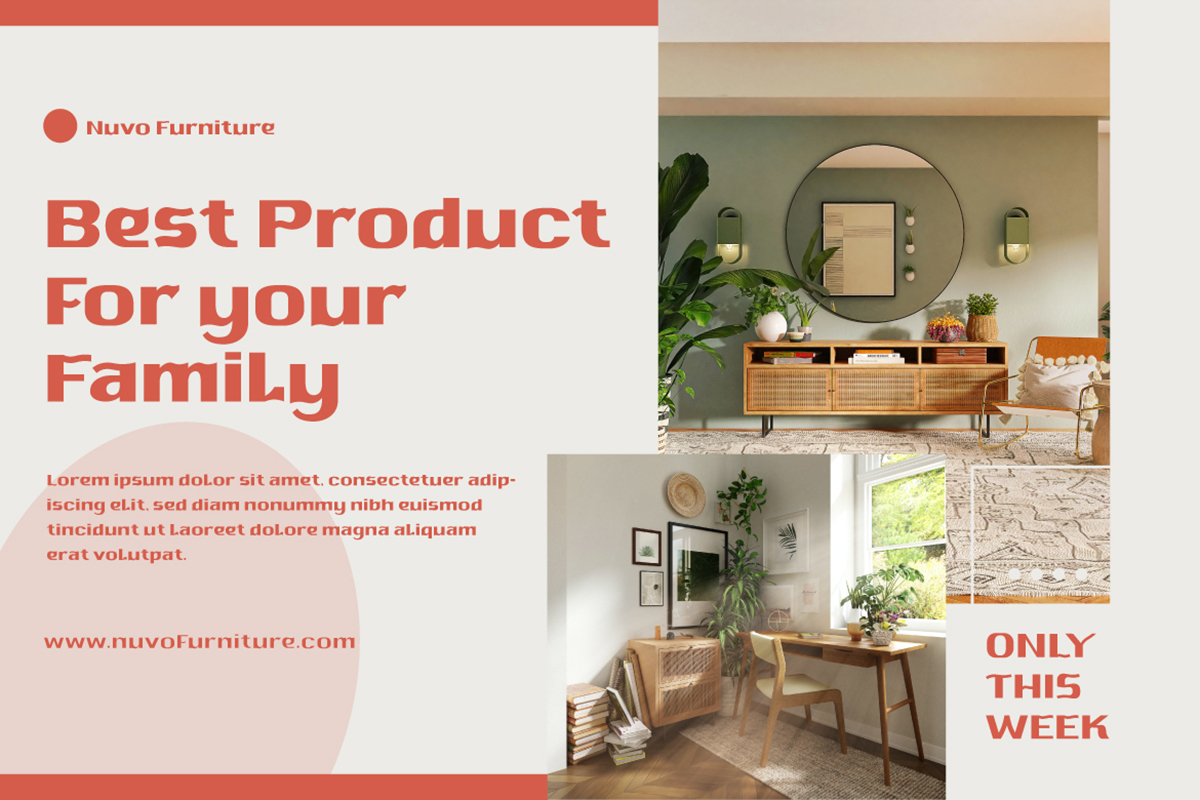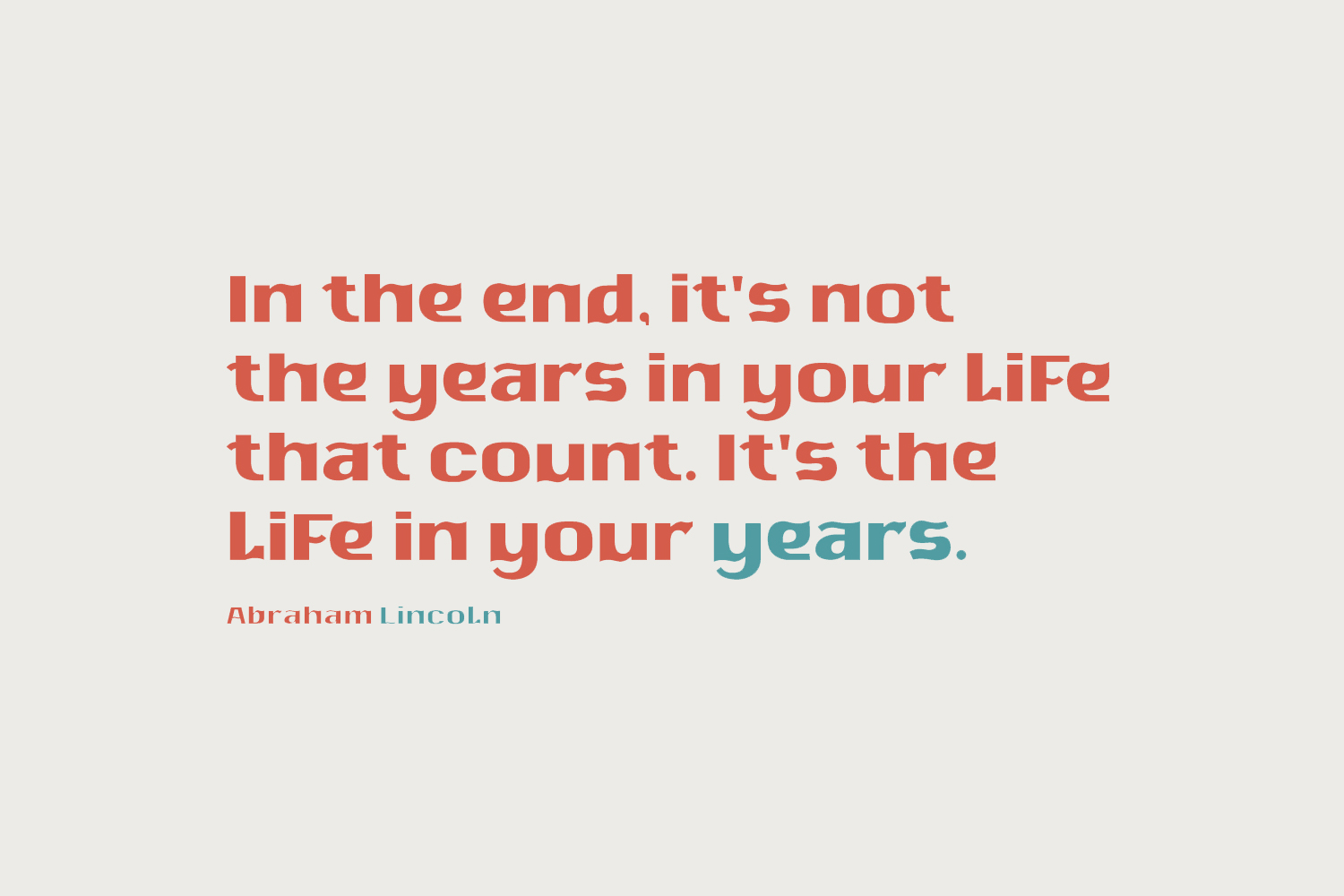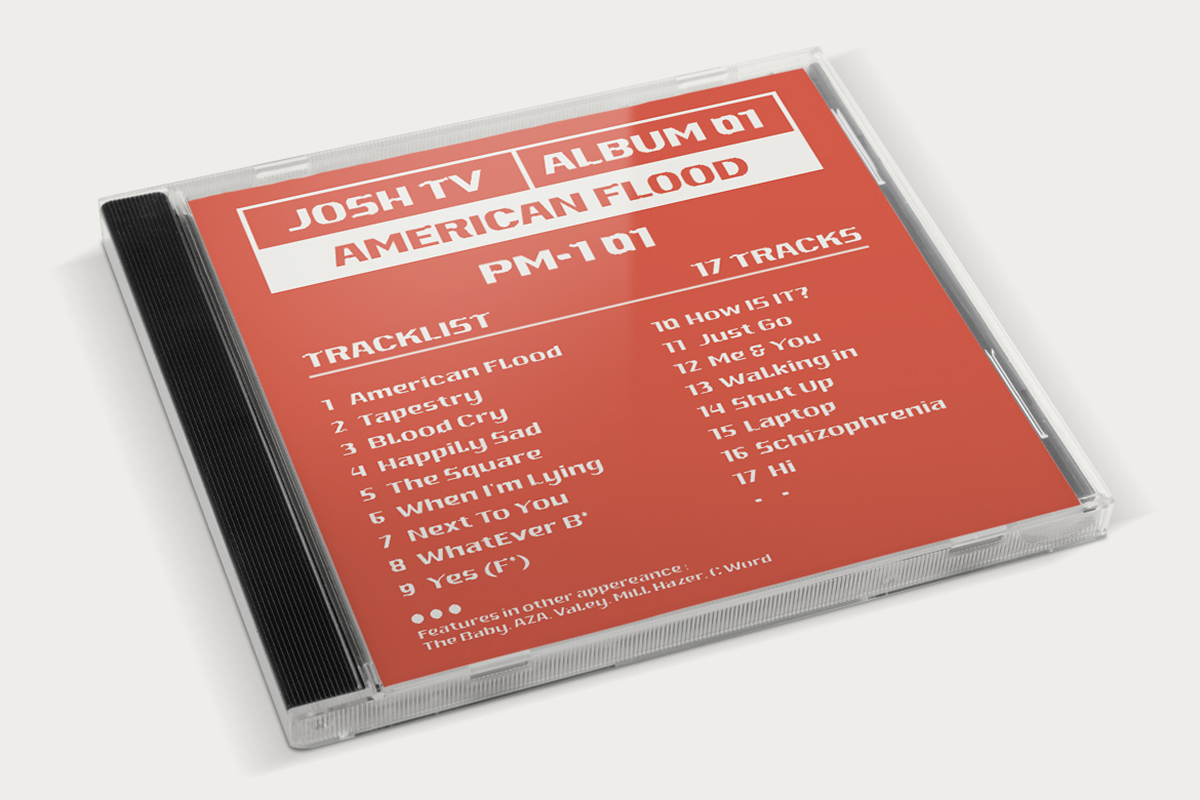
Begawan Free Font
Discover Begawan Free Font – a contemporary sans serif typeface inspired by the rhythmic flow of beach waves, guaranteed to add a unique touch to all your special projects. Watch your visuals come alive with its bold and bombastic style that effortlessly stands out. Prepare to leave your entire audience in awe and eager to explore your captivating ideas. Embrace the versatility of this font, equipped with a diverse range of characters tailored for titles, subtitles, and body text. With Begawan as your creative companion, your design projects are bound to reach new heights of perfection and uniqueness. This free typeface was designed by a talented Twin Letter. If you like it don’t forget to check out the full version.